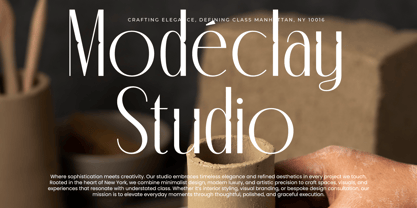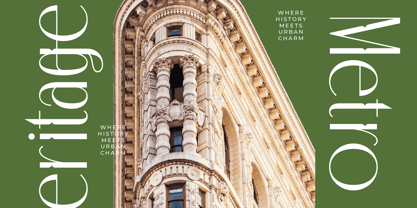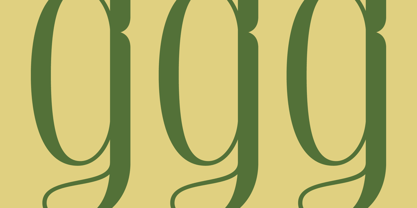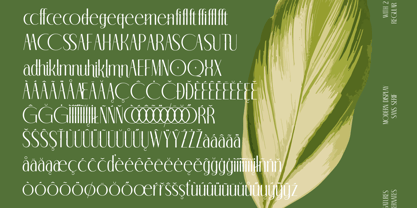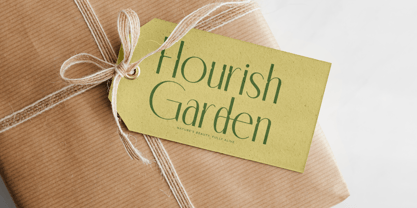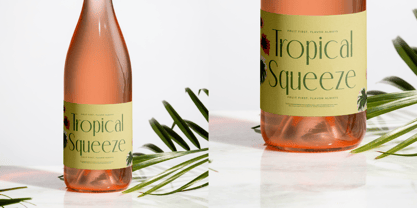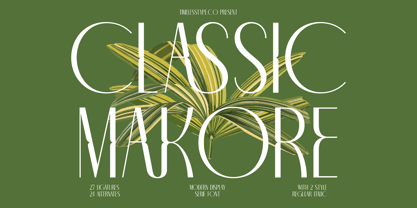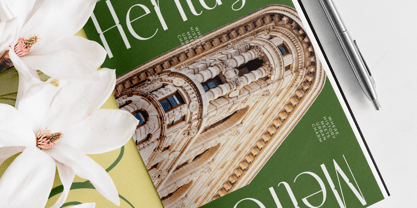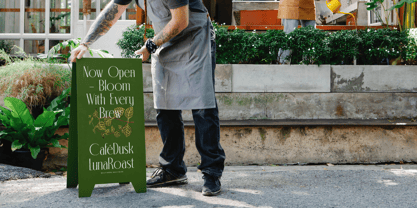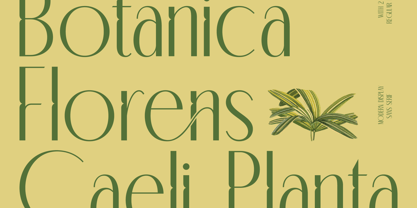
Classic Makore
The Classic Makore Font Family was designed by Heru Utama Putra and published by Timelesstype Studio. Classic Makore contains 2 styles.
Classic Makore - Modern Display Serif Font , from Timelesstype, Suitable for any projects such as: logos, branding projects, homeware designs, product packaging, mugs, quotes, posters, shopping bags, t-shirts, book covers, name card, invitation cards, greeting cards, label, photography, watermark, special events, and all your other luxury and beautiful projects that need a Luxury Serif taste.